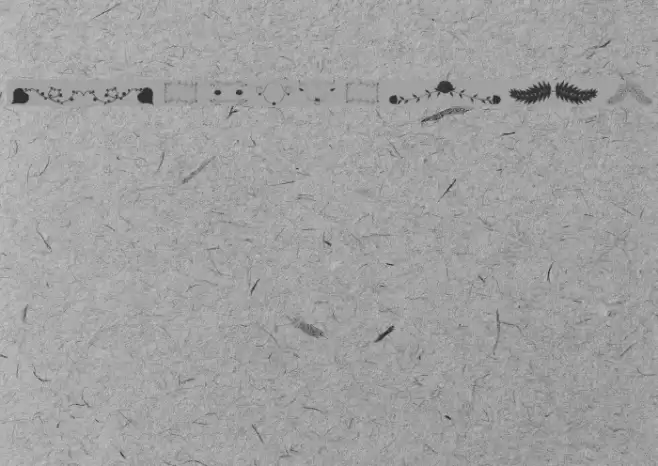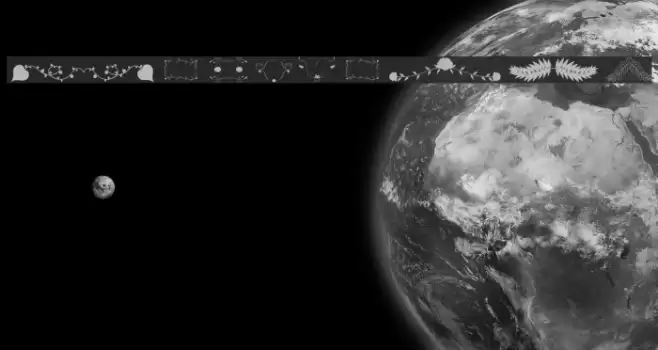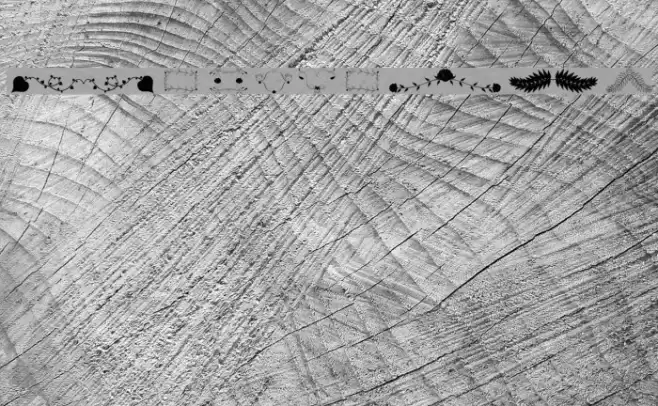
Florality Font
Florality Description
This decorative font features a series of floral and botanical elements, each character resembling a unique plant or flower motif. The design is intricate, with detailed line work that captures the essence of natural forms. The characters vary in complexity, some with dense foliage and others with simple, elegant lines. This font is ideal for adding a touch of nature and elegance to any design project. The overall appearance is whimsical and artistic, making it suitable for creative and decorative purposes.
A decorative font with intricate floral and botanical motifs from Uncategorized fonts.
- Proposed Projects: Ideal for wedding invitations, greeting cards, nature-themed branding, and decorative posters.
- Use Case: Logos, Decorative text, Invitations